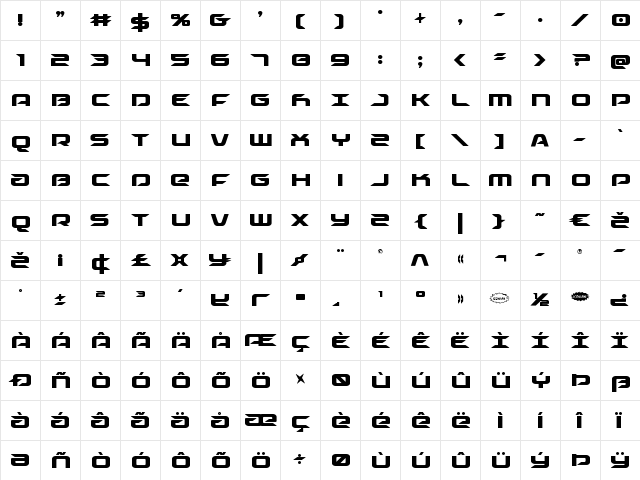
Drive Condensed Font Preview
Drive Condensed Condensed
Drive Condensed Font Details
Design Context for Drive Condensed Typeface
Drive Condensed is a composed and adaptable typeface that performs quietly and consistently across a wide range of design contexts. Its narrow stance lets it pack a punch even in space-constrained designs.